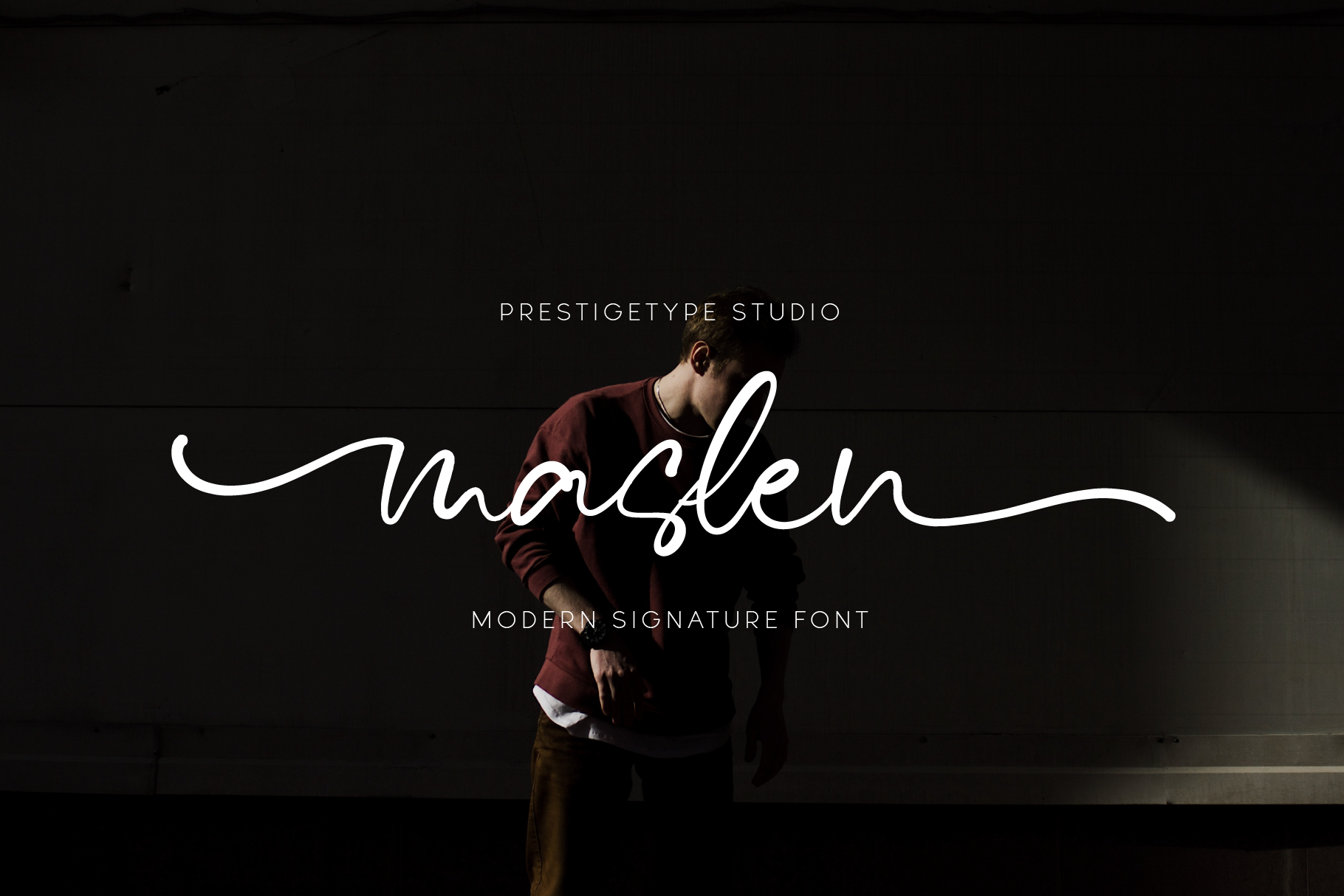
Maslen Modern Script Font
Finding the right font is the first step in building a compelling visual identity. The right font can represent the character of a brand's visual identity. Introducing Maslen: A Modern Signature Font with a simple and classy touch. Maslen includes a set of uppercase and lowercase letters, multilingual, OpenType feature. For those looking for a script font with modern, elegant, and smooth characters for branding and marketing purposes, the Maslen font might be the right choice for you.
Maslen Features:
- Lowercase and Uppercase
- Discretionary Ligatures